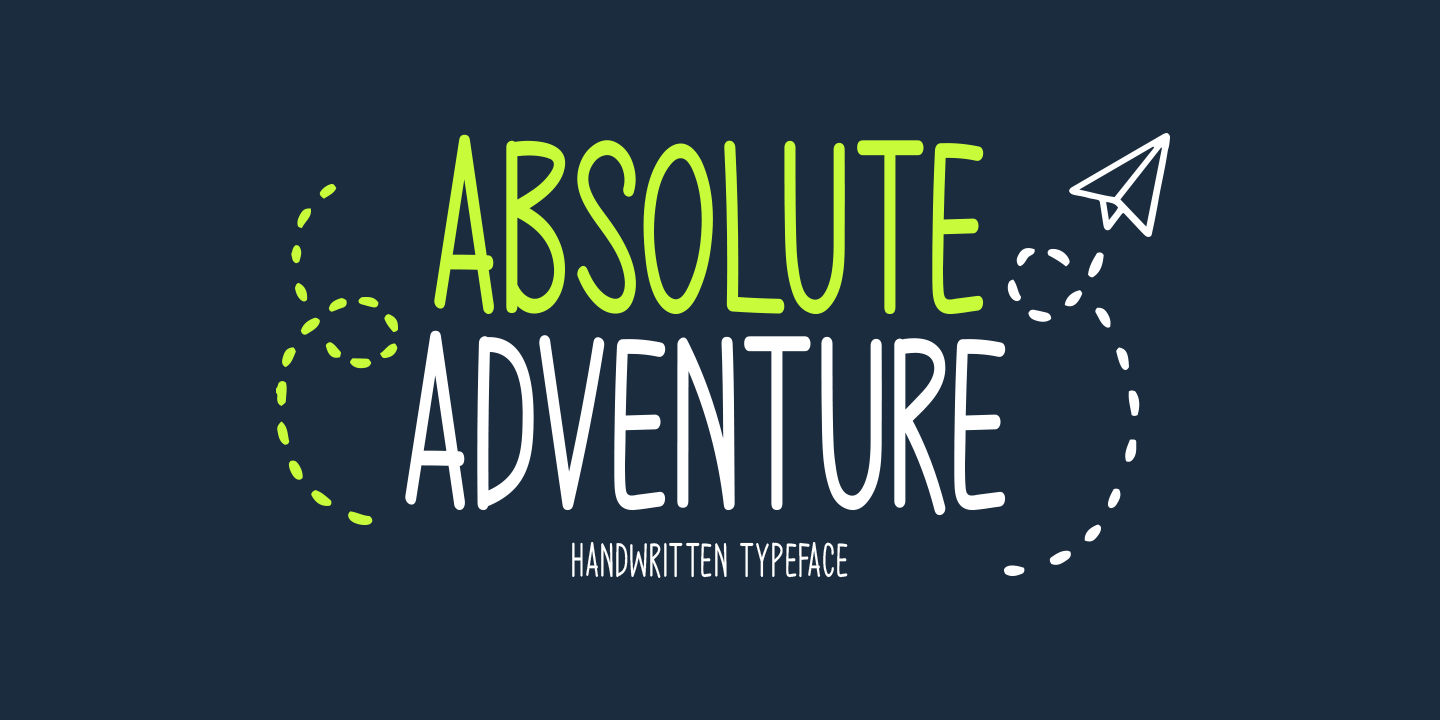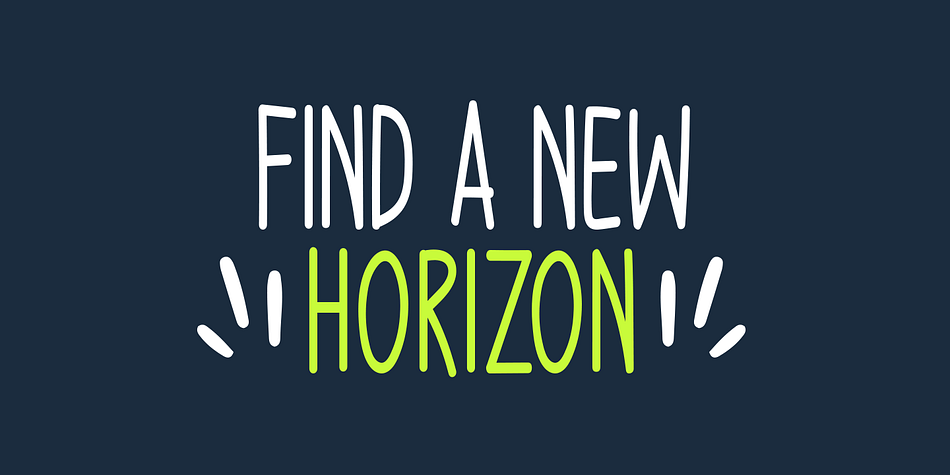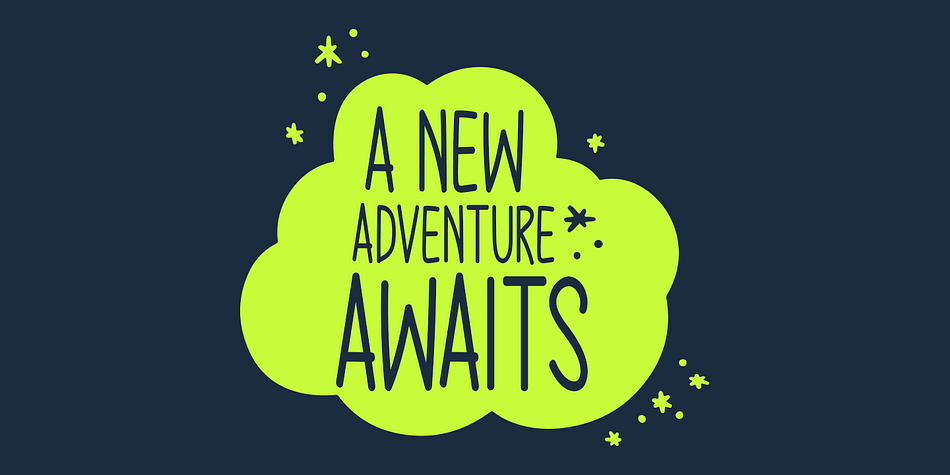
ABSOLUTE ADVENTURE
Designed by Md. Shohail Bhuiyan, Absolute Adventure is a display sans and hand drawn font family published by Seemly Fonts.
Absolute Adventure is a unique handwritten font. This font is a great choice for a wide variety of contexts! It looks amazing on greeting cards, business cards, logos, thank-you cards, quotes, greeting cards, and any other design that needs a creative spark.
Styles Display Sans, Hand Drawn
Designer Md. Shohail Bhuiyan